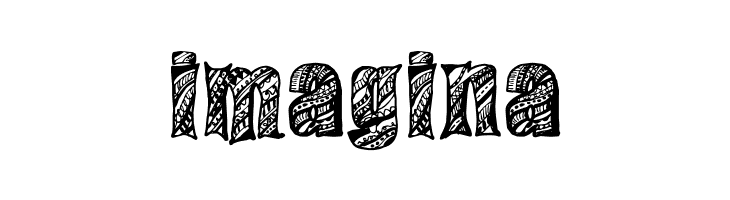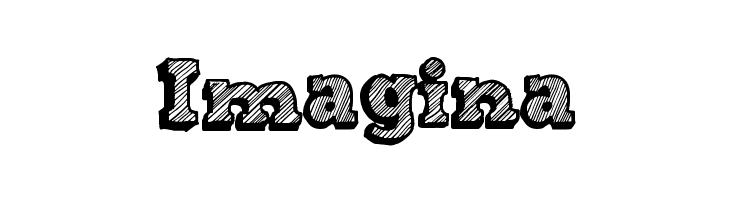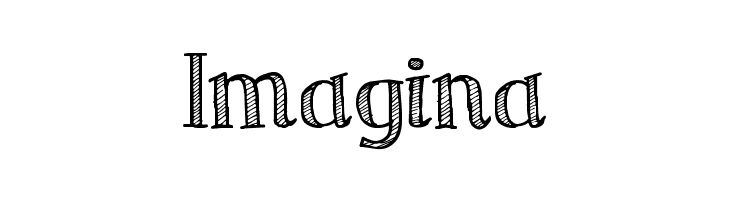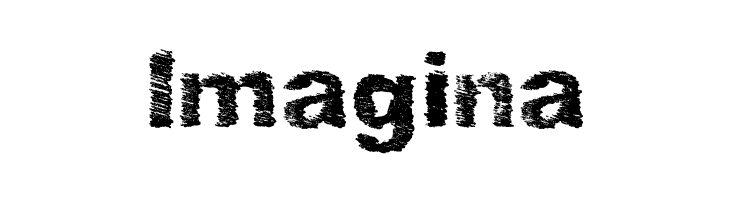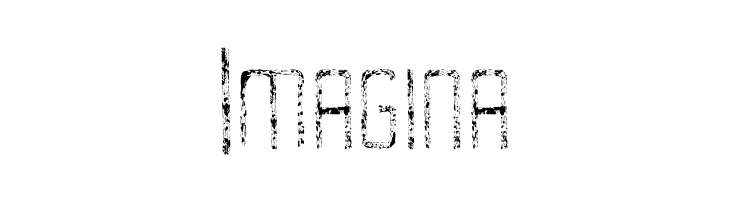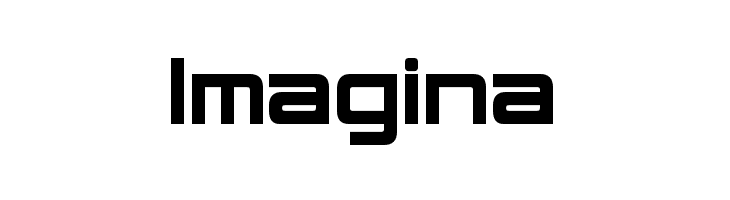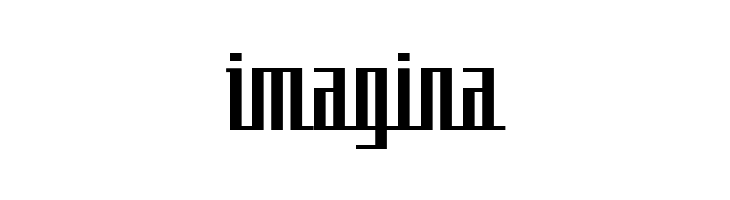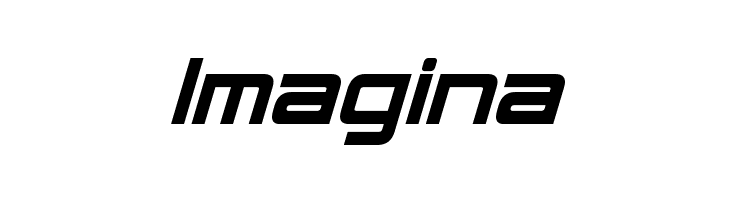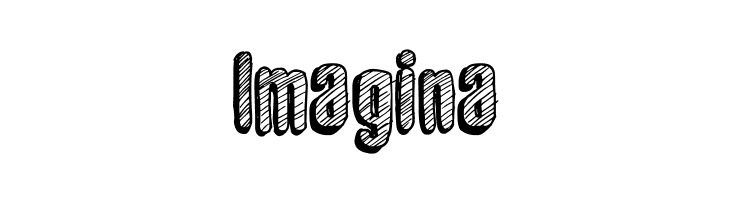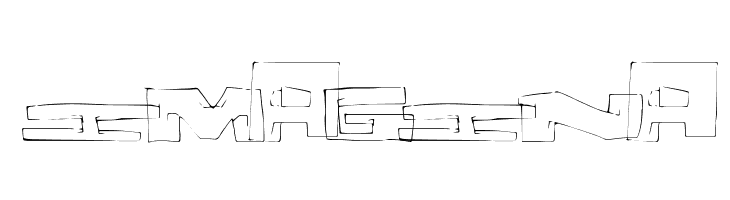
A bold, decorative font with intricate 1960s-inspired patterns.
A bold, decorative font with intricate, retro-inspired patterns.
A decorative and abstract font with intricate geometric designs.
An edgy, graffiti-inspired font with sharp angles and dynamic strokes.
A playful, bubble-like font with a retro vibe and consistent boldness.
A playful, bubble-like font with rounded, bold characters.
A playful, sketch-like font with a hand-drawn, textured appearance.
A bold, sketch-style font with a hand-drawn, textured appearance.
A playful, sketch-like font with bold, textured characters.
A playful, hand-drawn sketch font with bold, textured letterforms.
A bold, sketch-style font with a hand-drawn, textured appearance.
A bold, sketch-like font with a hand-drawn, artistic aesthetic.
A sketch-style serif font with a hand-drawn, textured appearance.
A playful, sketch-style font with bold outlines and diagonal hatching.
A hand-drawn, sketch-style font with dynamic, textured strokes.
A bold, sketch-style font with textured, hand-drawn strokes.
A bold, geometric font with a modern, edgy style.
A textured, distressed font with a rugged, urban feel.
A tall, narrow serif font with a hand-drawn, whimsical style.
A tall, slender serif font with elegant, elongated characters.
A bold, geometric font with a futuristic and modern aesthetic.
A modern oblique font with sharp angles and a sleek, dynamic style.
A bold, cartoonish font with thick, uneven strokes and a playful style.
A playful, handwritten font with a casual, sketch-like style.
A bold, handwritten marker-style font with a playful and informal vibe.
A bold, hand-drawn font with a rugged, textured style.
A bold, handwritten font with a playful and dynamic style.
A playful, bold font with rounded, hand-drawn characters.